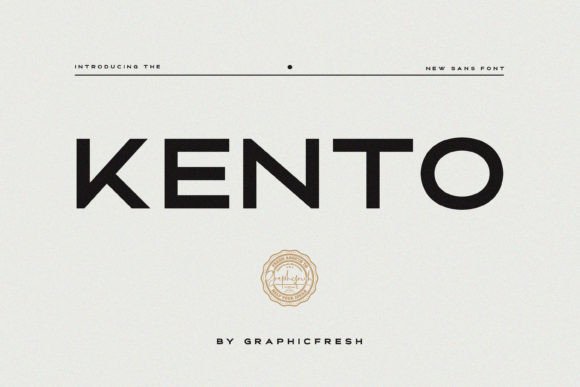
Introducing Kento Font, the ultimate choice for designers seeking to add a touch of vintage flair to their projects. Created by Graphicfresh, Kento is a sans-serif font with a classic touch that is slightly stretched to the sides. This unique design element adds a touch of character and personality to the font, making it perfect for those who want to stand out from the crowd.
If you are looking for the best font for vintage T-shirts, then look no further than Kento. This font is the perfect choice for any designer looking to add a touch of retro style to their designs. Its simple yet luxurious design leaves a deep memory impression when used on a brand, making it the perfect choice for those who want to make an impact.
Kento is not just limited to T-shirts; it is perfect for a wide range of projects, including fashion, magazines, logos, branding, photography, invitations, wedding invitations, quotes, blog headers, posters, advertisements, postcards, books, websites, and more. This versatile font is sure to meet all your design needs, and its simplicity and power will make it a favorite among designers of all skill levels.
But Kento isn't just a font; it's an experience. Its emotional design is sure to resonate with your audience, making them feel connected to your brand on a deeper level. Whether you're designing a logo, creating an advertisement, or putting together a magazine spread, Kento is the perfect font to help you achieve your goals.